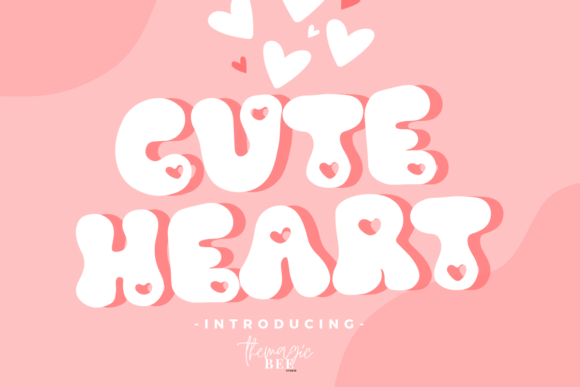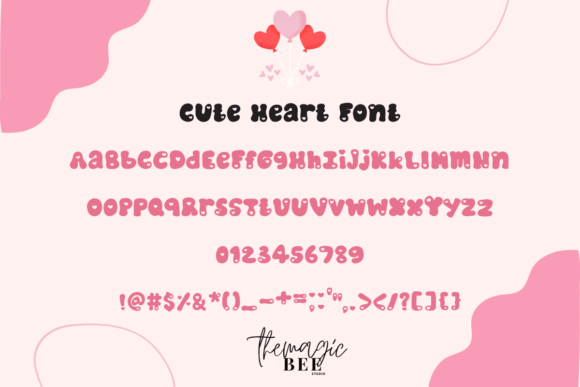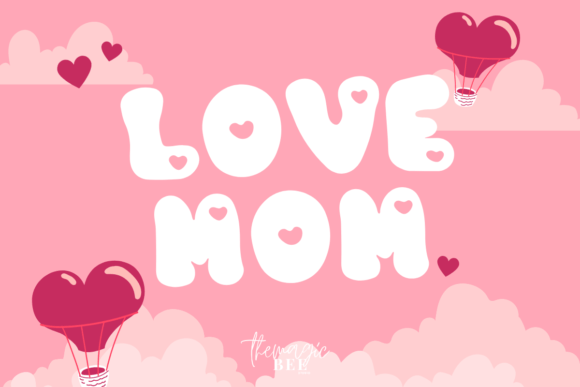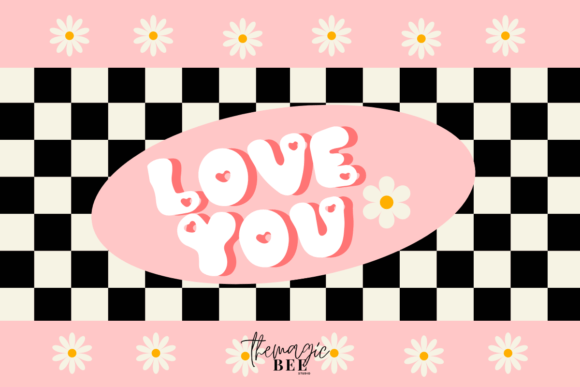
Cute Heart Font
About the Cute Heart Font
The wait is over! The incredible Cute Heart Font is now available for your design toolkit. Cute Heart is a decorative font that is cute and fun. It is perfect for Valentine’s or Mother’s Day designs. Add this beautiful font to each of your creative ideas, and notice how it makes them stand out!
Cute Heart’s playful design excels in short, impactful applications like logos for children’s brands, social media graphics, greeting cards, and packaging for sweet treats or gifts. Its decorative nature, however, makes it less suitable for body text or lengthy content, where readability suffers. Avoid using it in UI design or situations requiring high legibility.
The font’s inherently friendly personality pairs well with softer sans-serif fonts like Lato or Open Sans for balance, creating a visually appealing contrast. For a more playful effect, consider pairing it with a rounded geometric sans-serif such as Montserrat. Conversely, a classic serif like Garamond can offer sophistication, grounding Cute Heart’s whimsical charm.
Cute Heart Font Usage Examples
Cute Heart Font Example